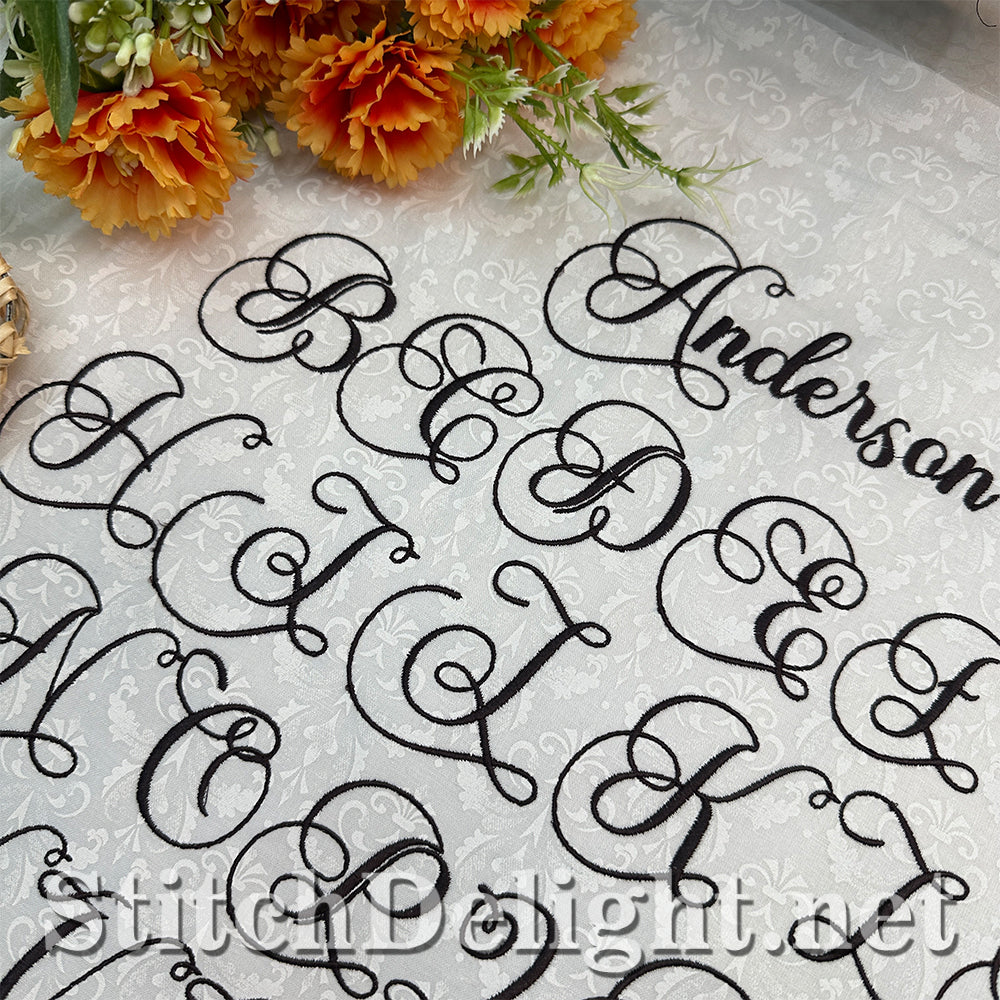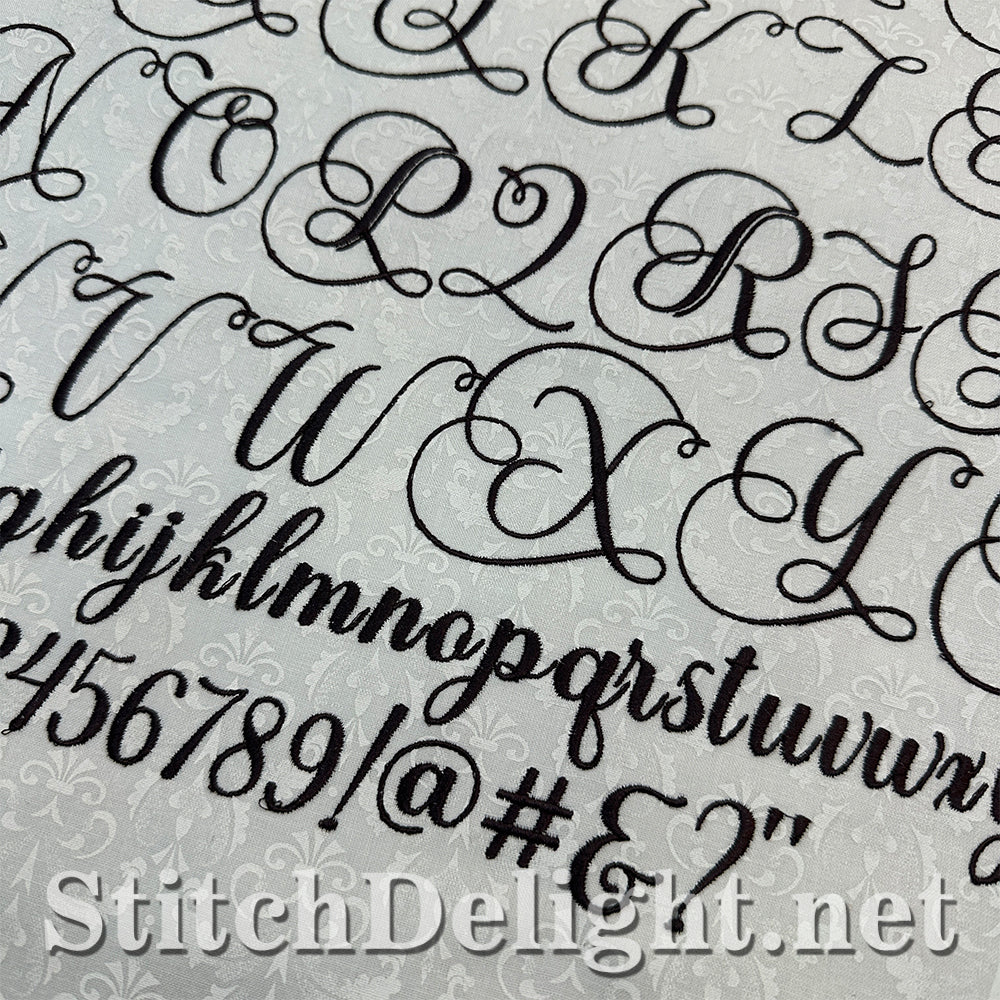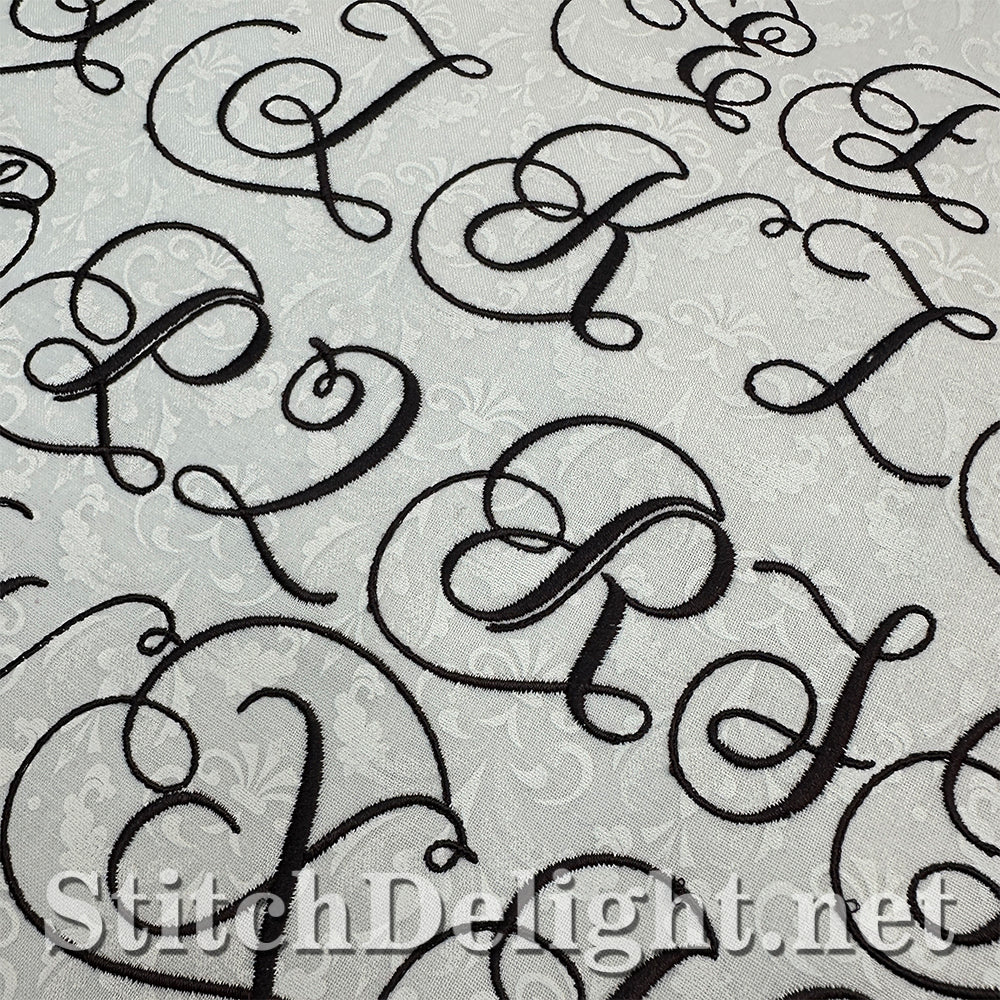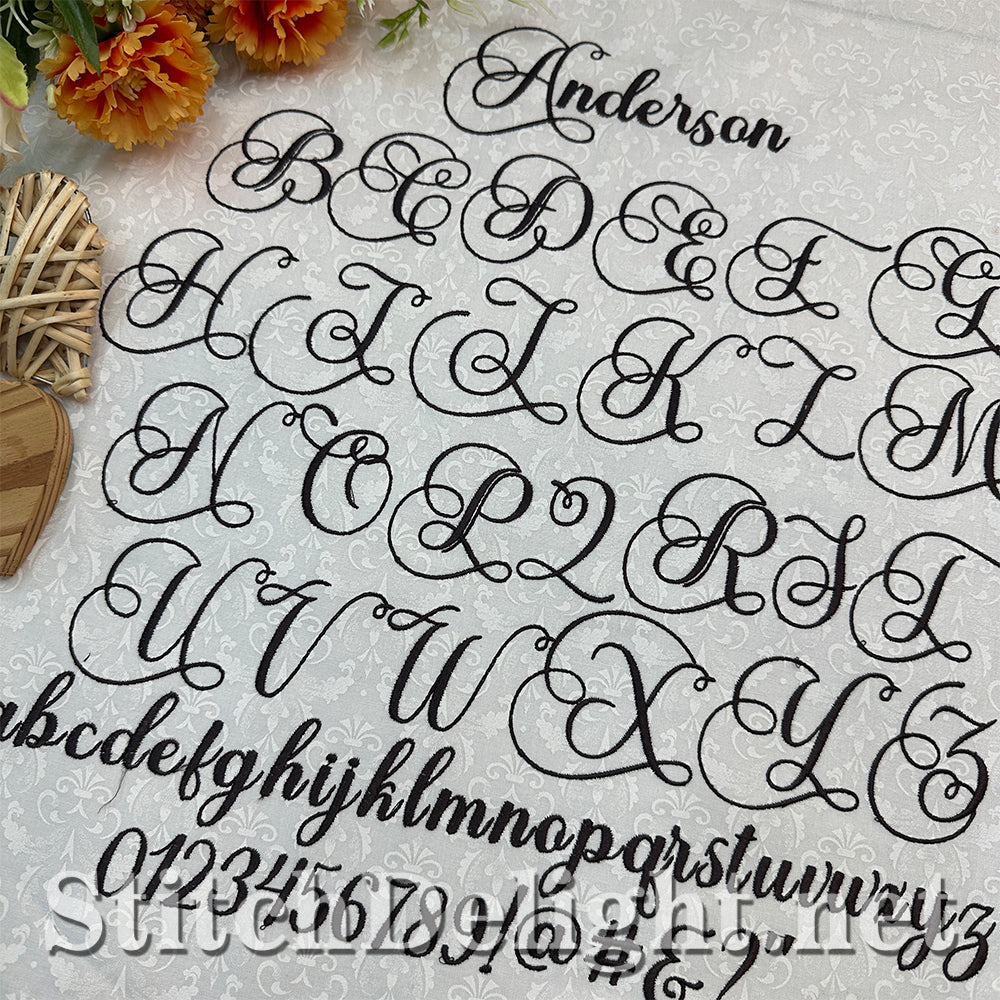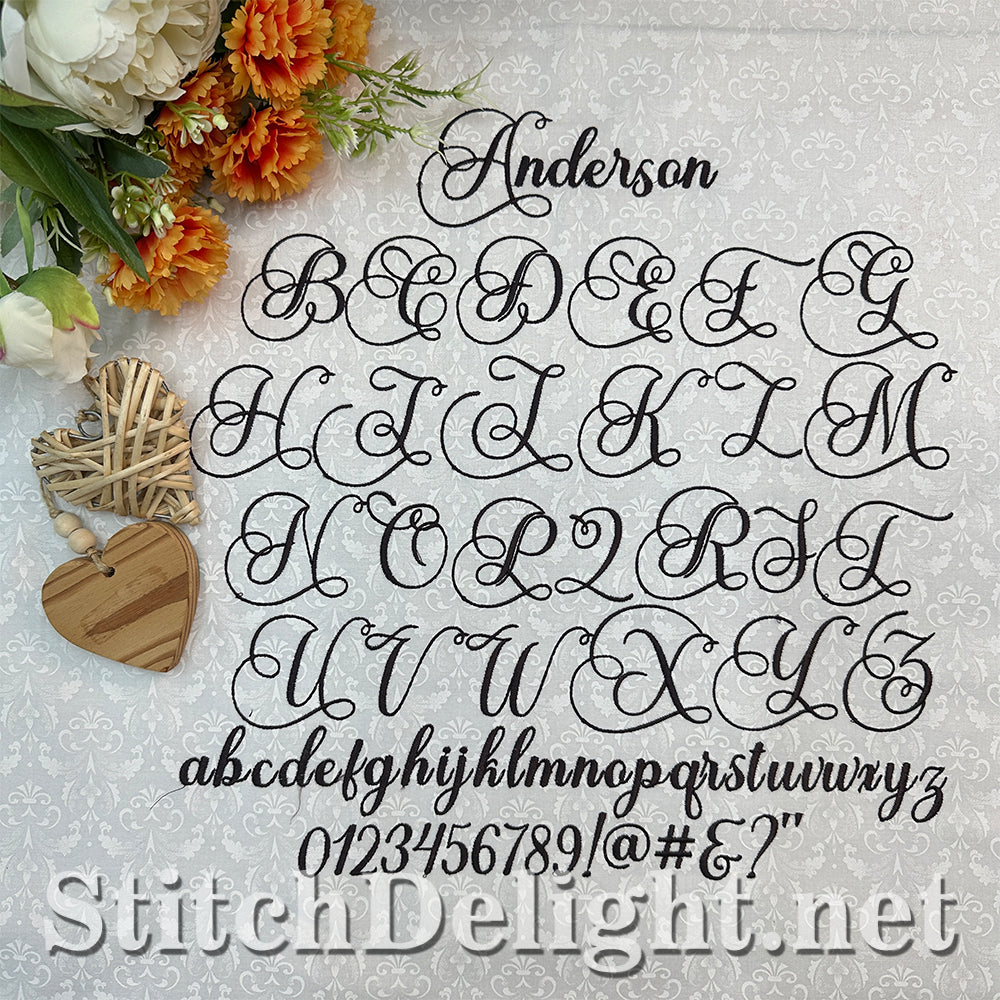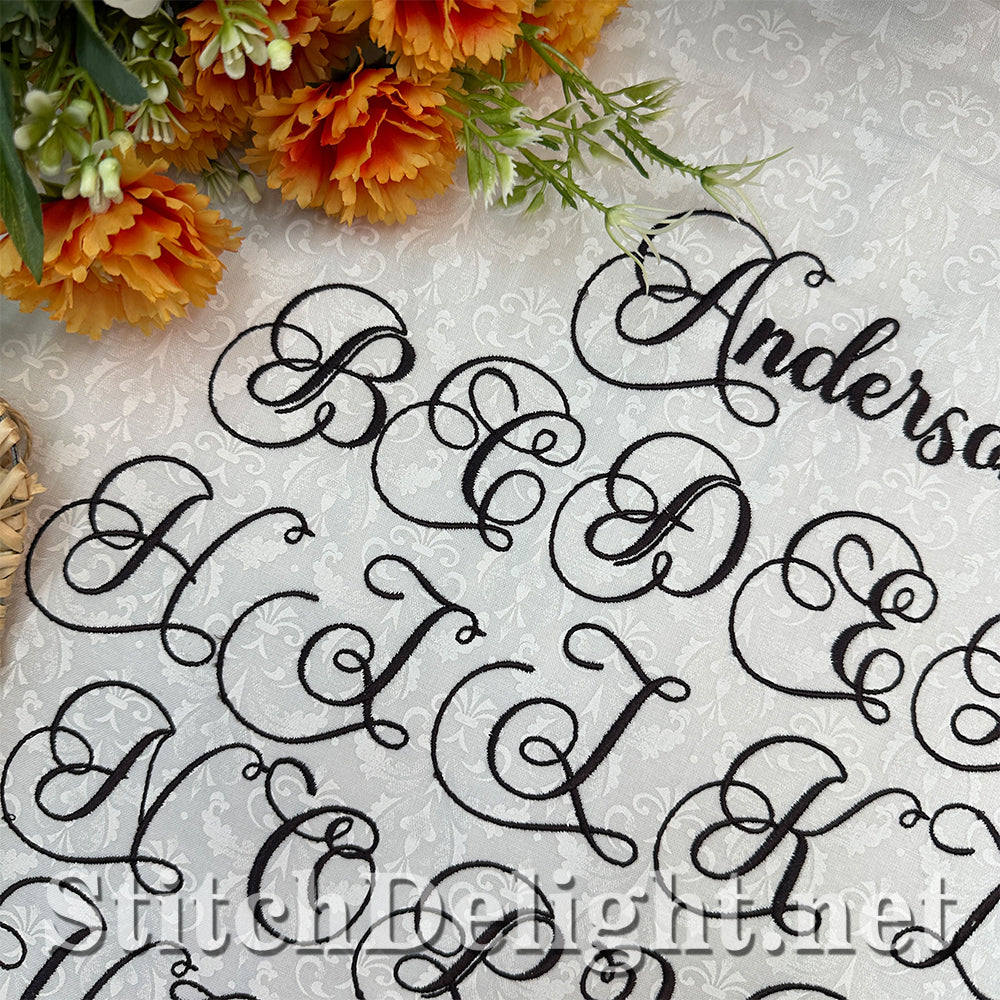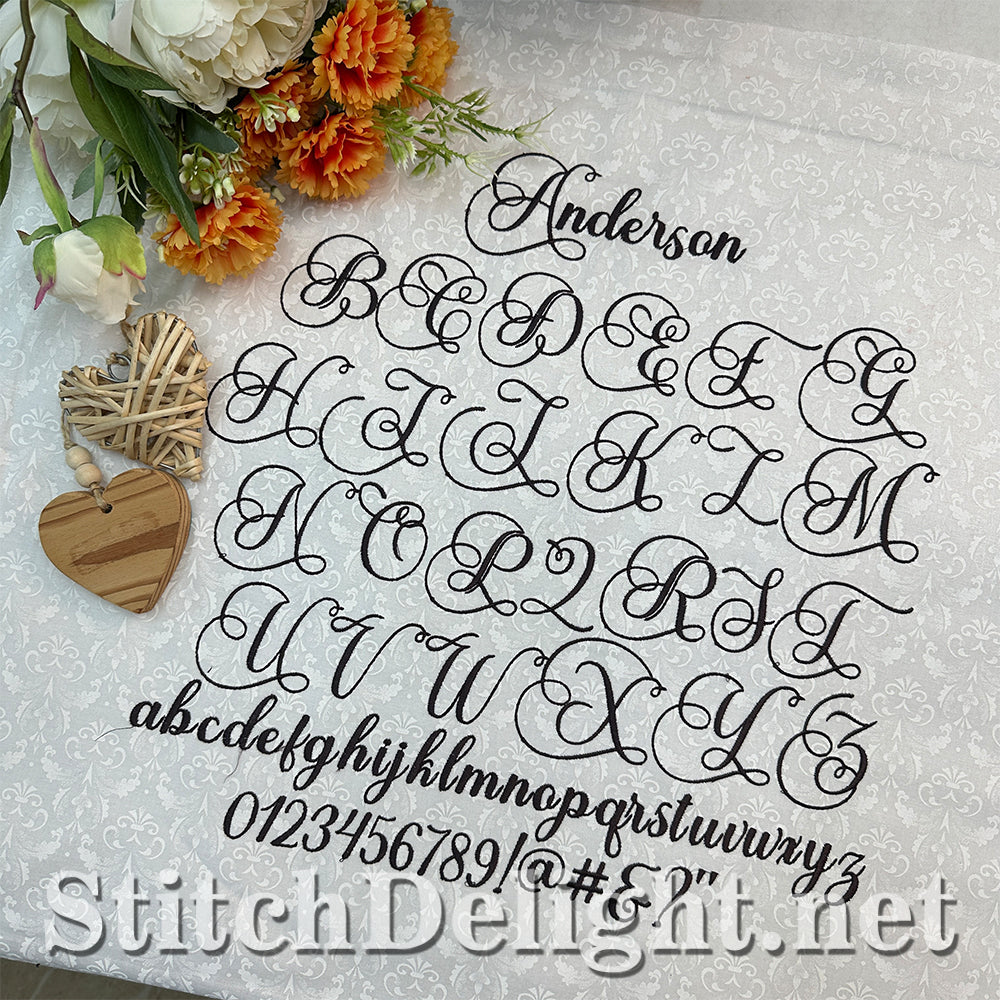
SDS4478 Scroll Elegance Font
This is a very special font with elegant scrolls and gorgeous shapes, just perfect for monograms.  This font was used on the Family Crest set - VIEW HERE
Letter height for this font is 1.34inch or 34mm